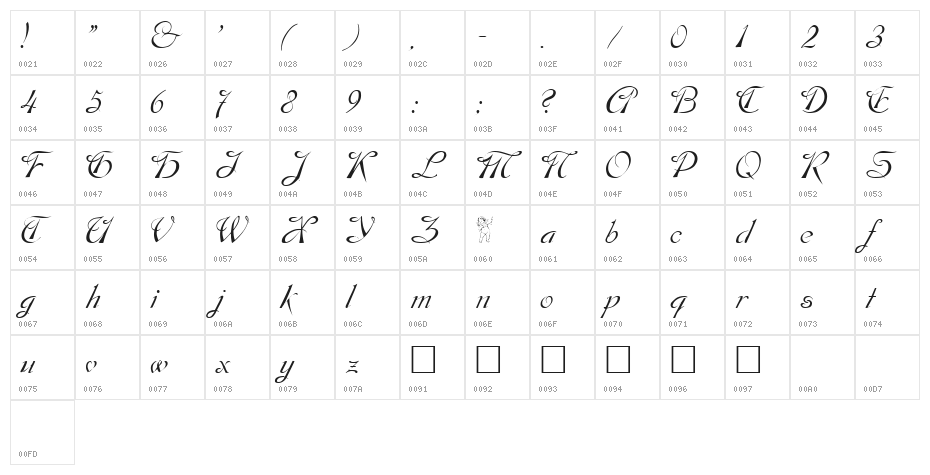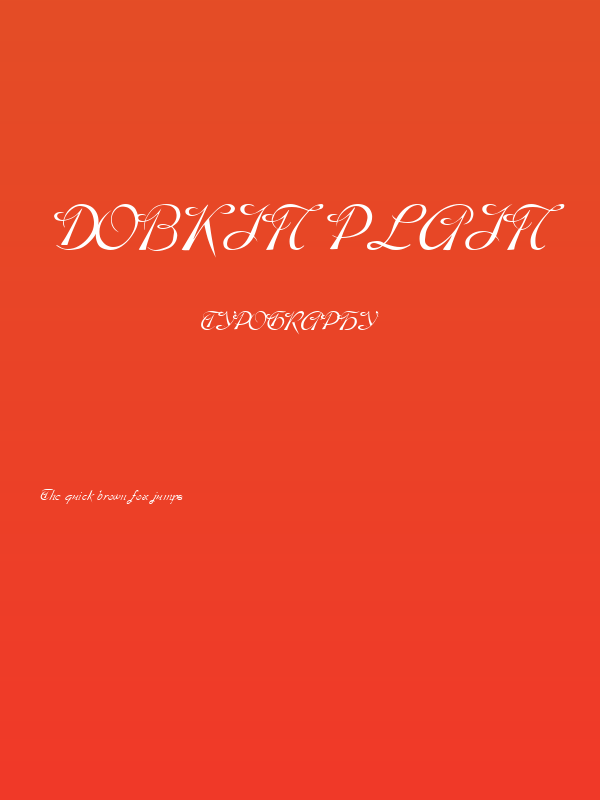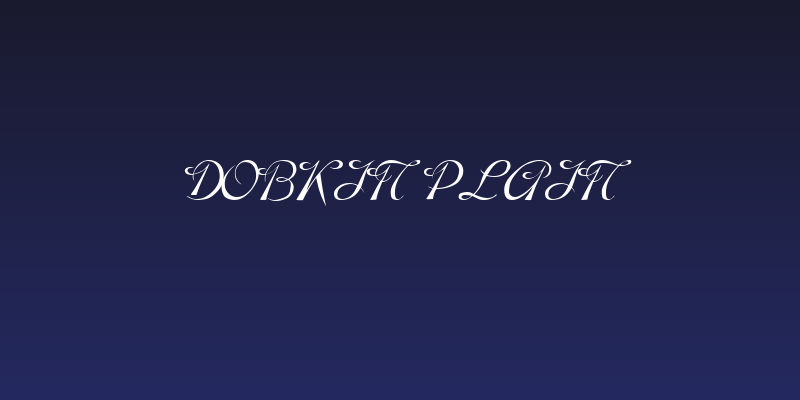
Dobkin Plain Font
Dobkin Plain Description
This font features an elegant and flowing script style, characterized by its cursive and calligraphic elements. The uppercase letters are ornate, with sweeping curves and flourishes that give a sense of movement and grace. The lowercase letters maintain a consistent style, with smooth, rounded forms and subtle variations in stroke width that add to the overall fluidity. Numbers are styled to match the letters, with a similar emphasis on curves and elegance. The special characters are designed to integrate seamlessly with the alphabet, maintaining the decorative and sophisticated aesthetic. This font is ideal for projects that require a touch of elegance and sophistication, such as invitations, greeting cards, and branding materials.
| Proposed Projects | Ideal for wedding invitations, elegant branding, greeting cards, and decorative projects. |